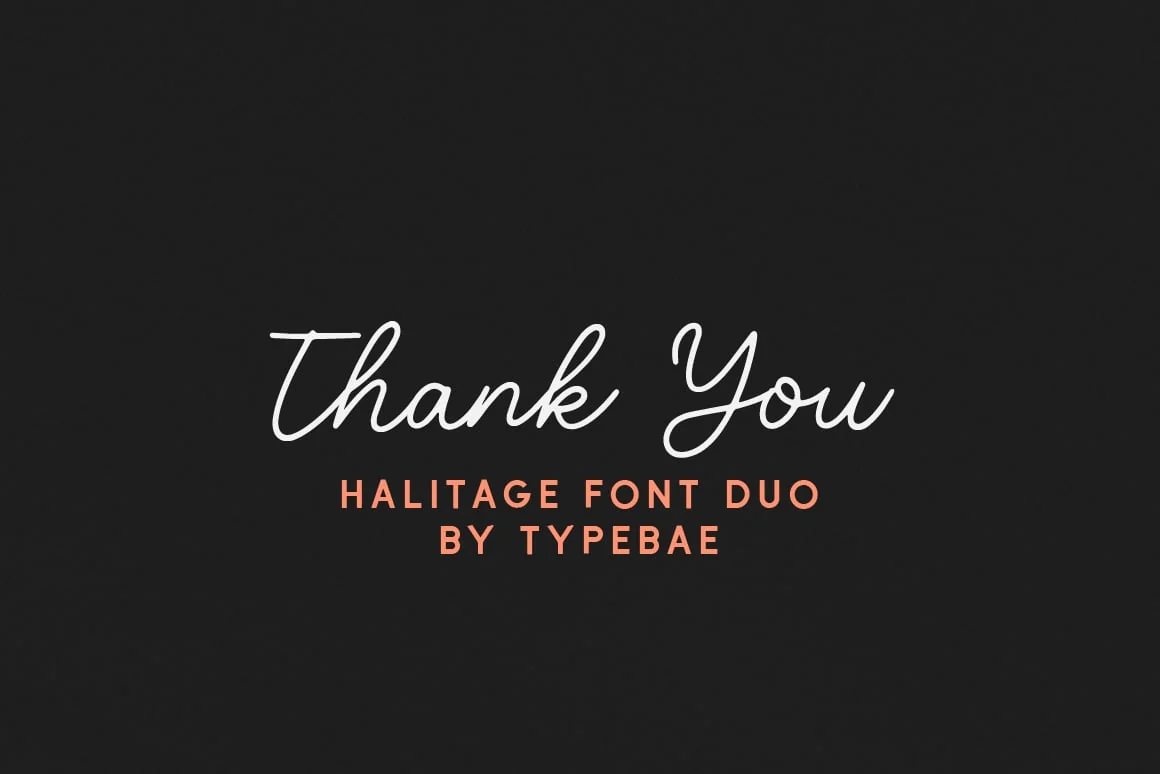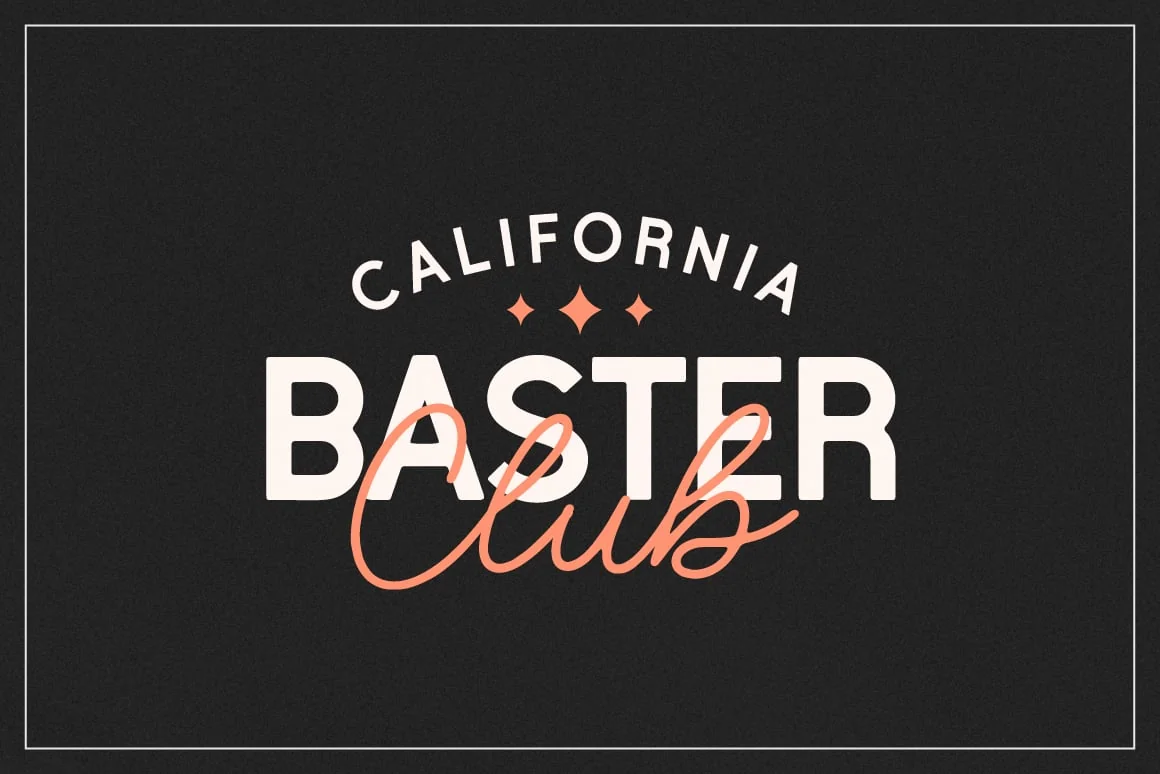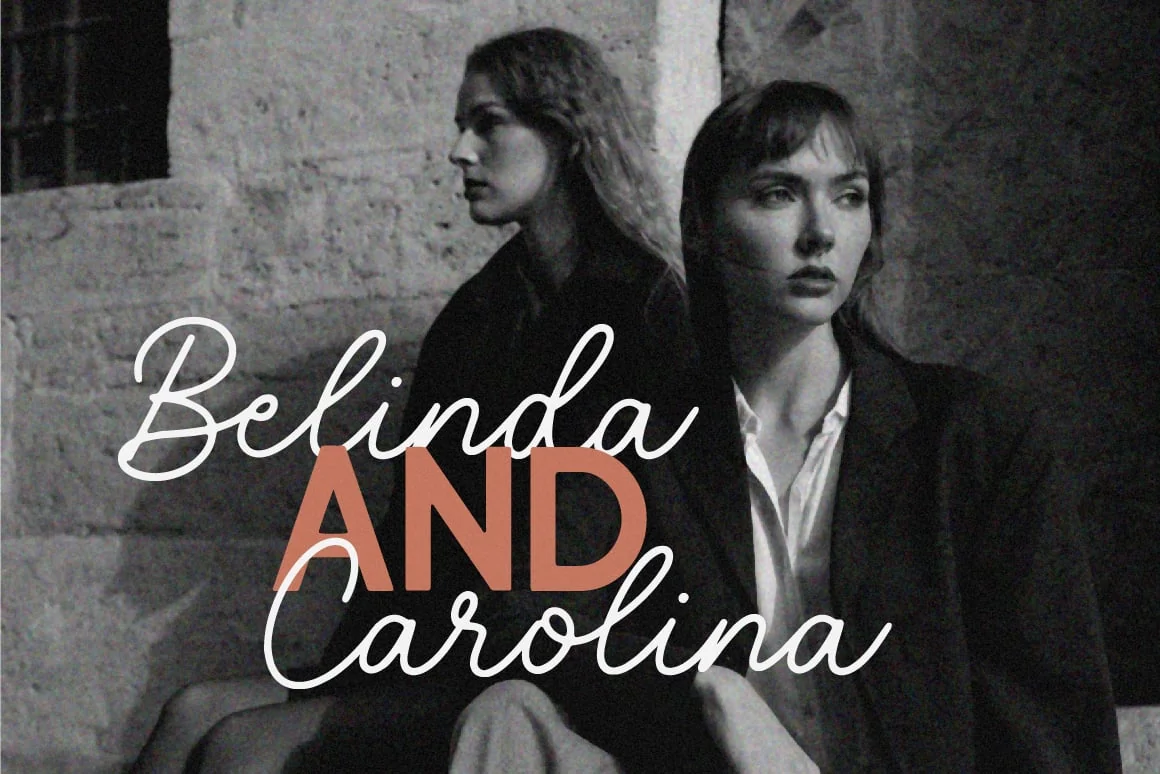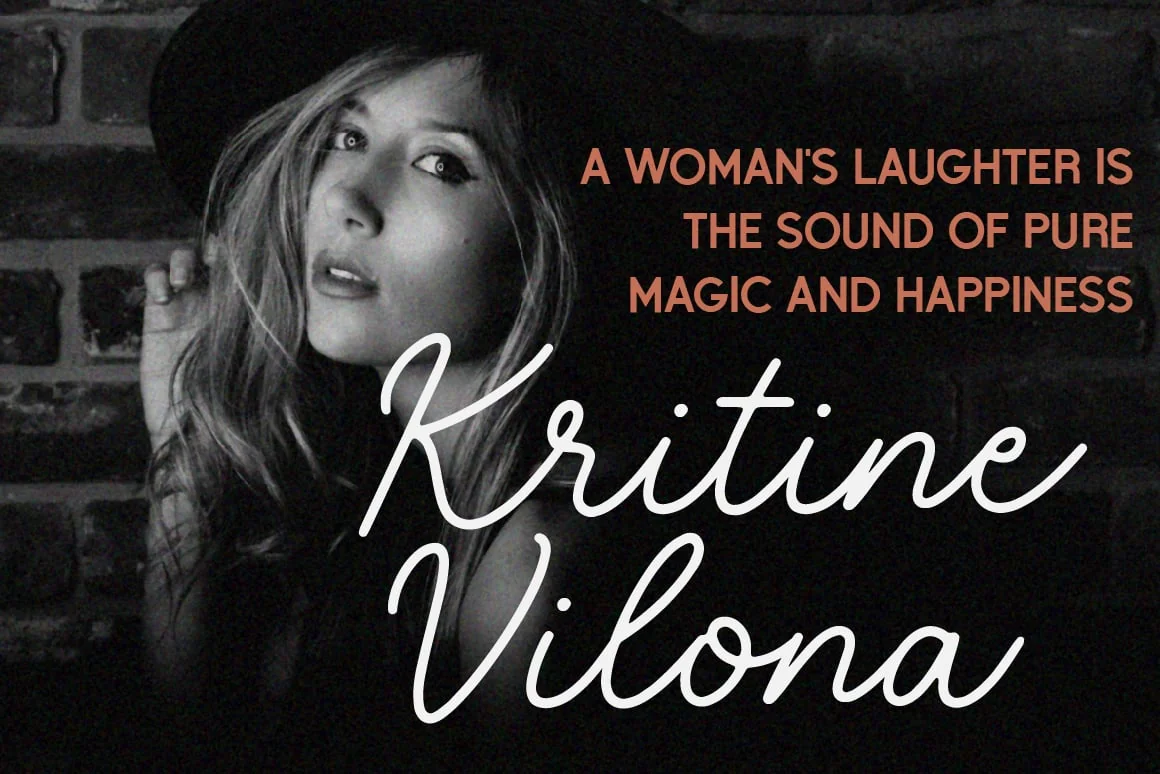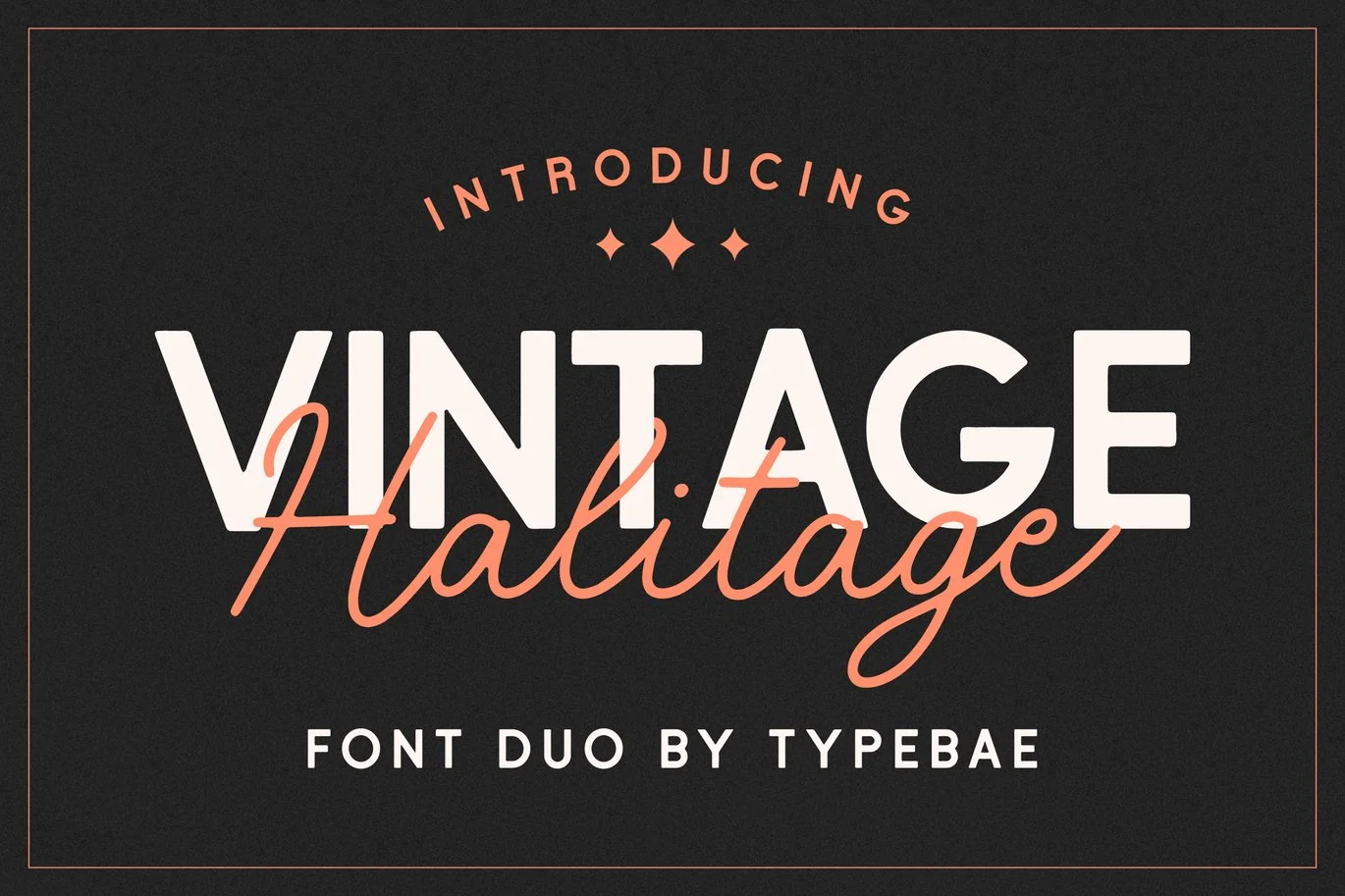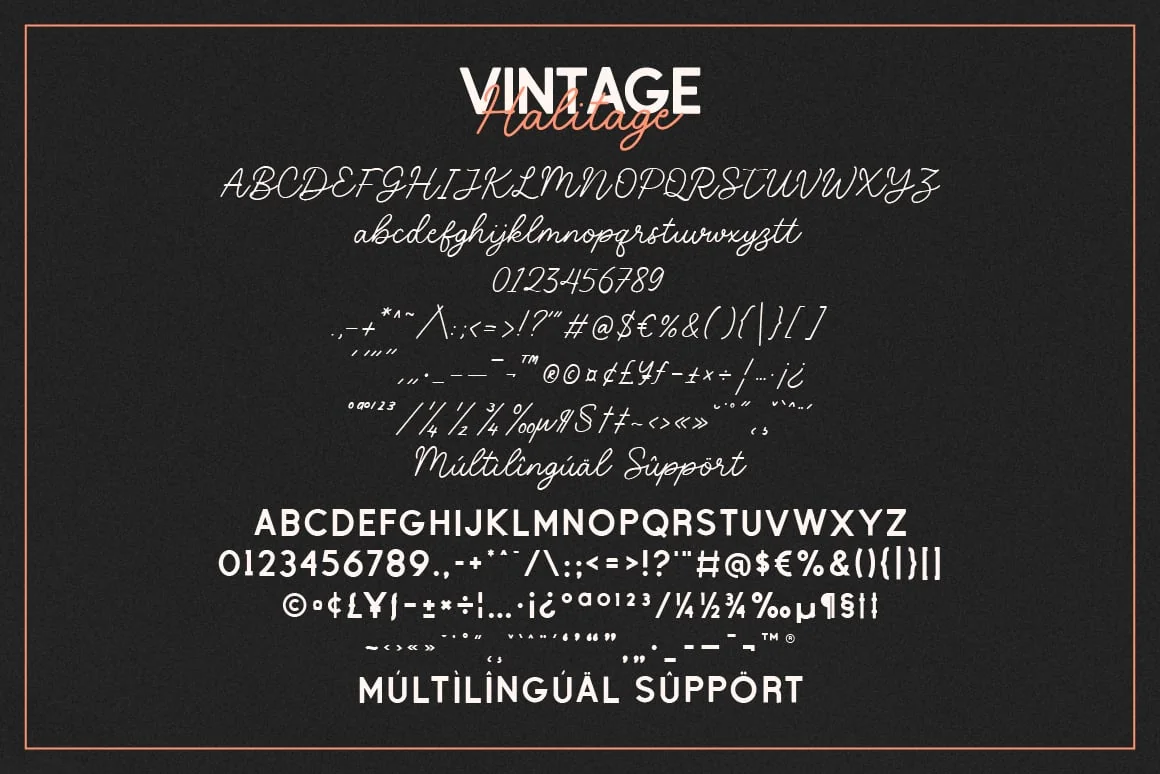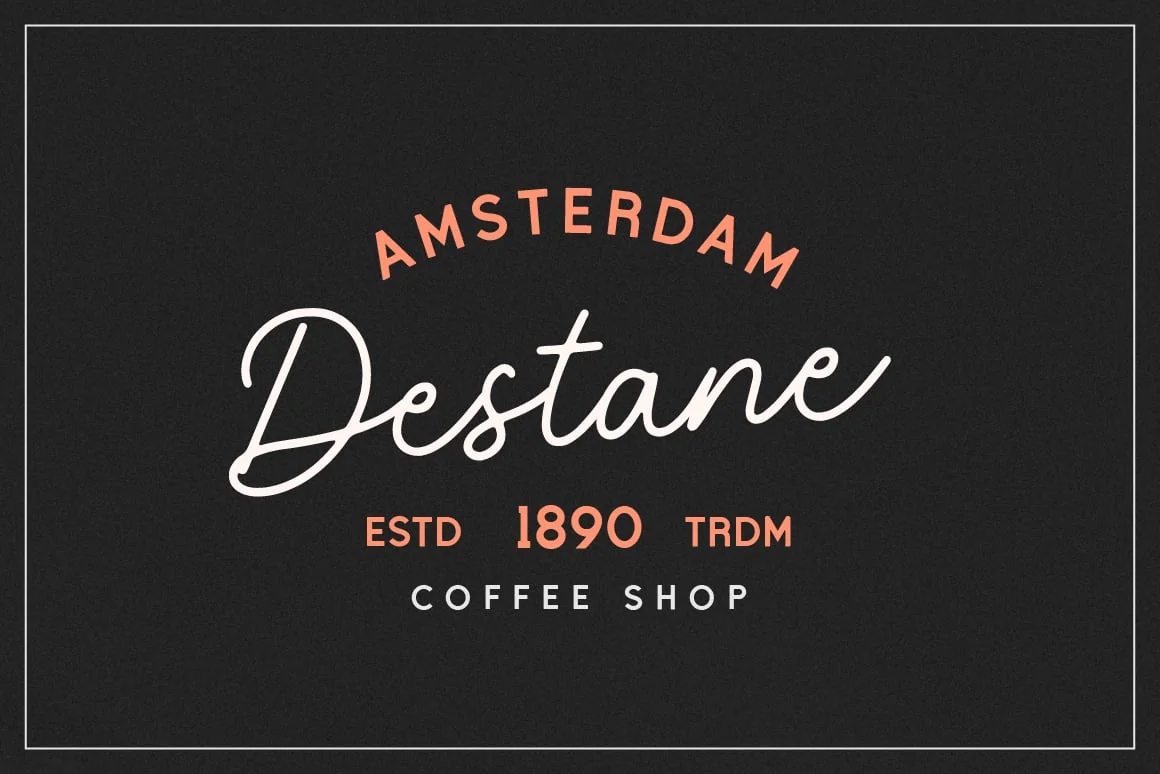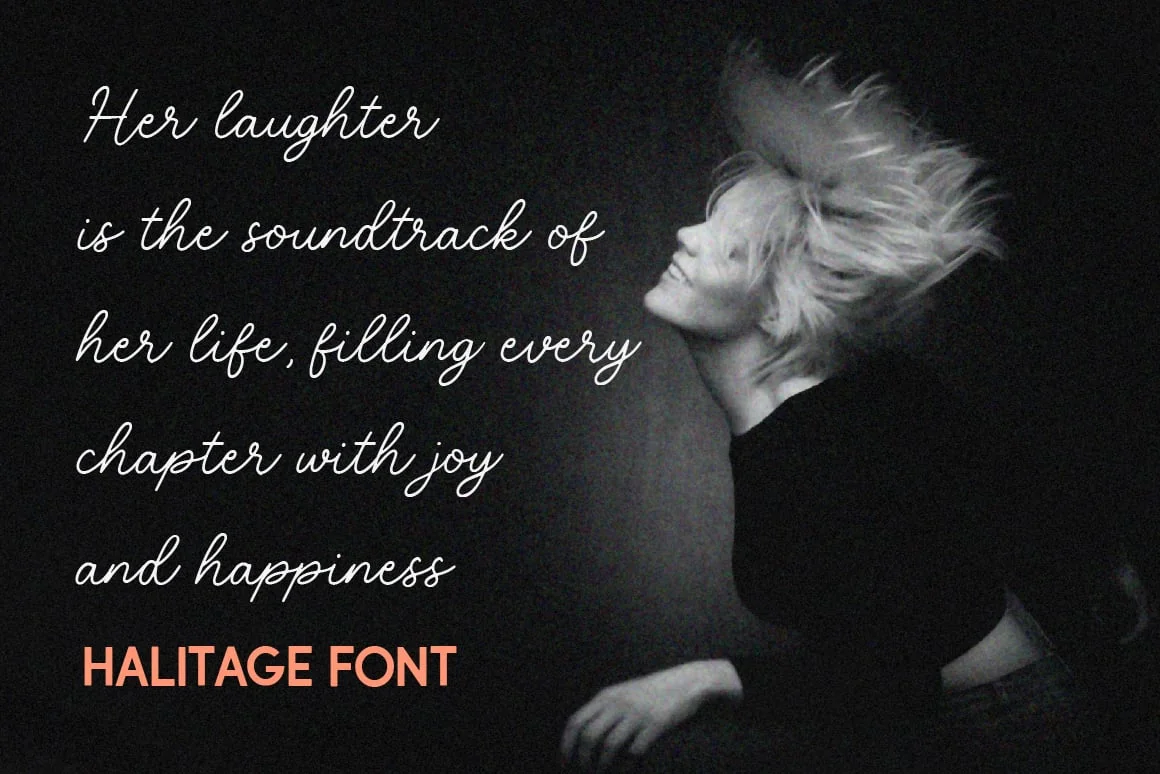
Halitage Vintage Font Duo
Halitage is a vintage duo font that combines a script style and a sans serif style. Together, the Haliitage font duo offers a harmonious blend of vintage and contemporary aesthetics, making it versatile for various creative applications such as branding, logos, invitations, and more.
- Halitage Script & Sans
- Standard alphabet and punctuation
- Ligature feature
- Multilingual Support: Afrikaans, Basque, Breton, Catalan, Danish, Dutch, English, Finnish, French, Gaelic (Irish, Scots), German, Icelandic, Indonesian, Irish, Italian, Norwegian, Portuguese, Saami (Southern), Spanish, Swahili, Swedish.